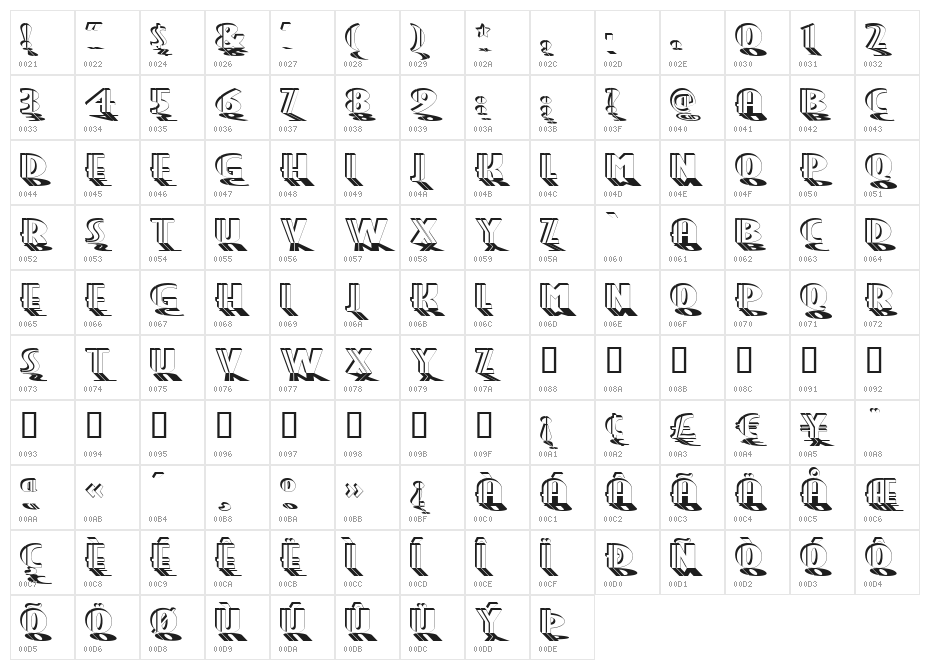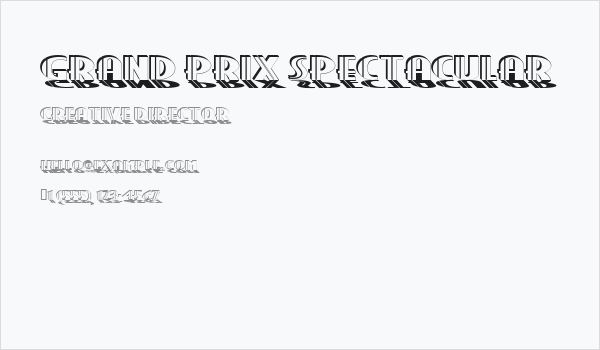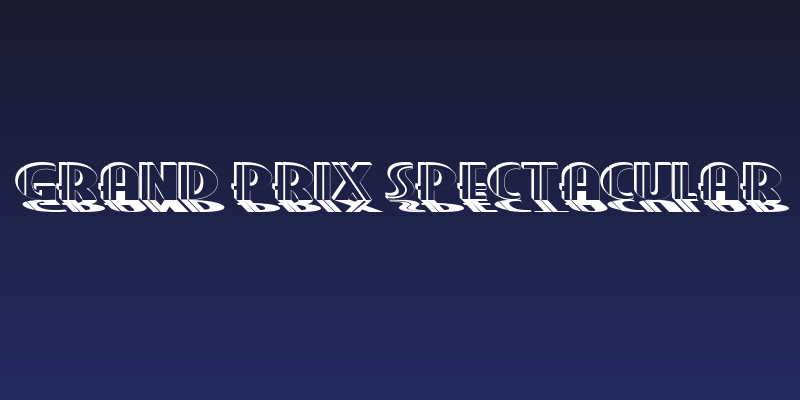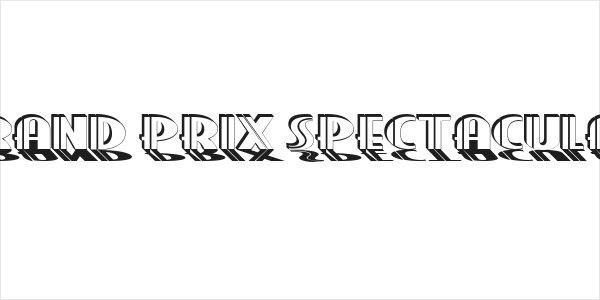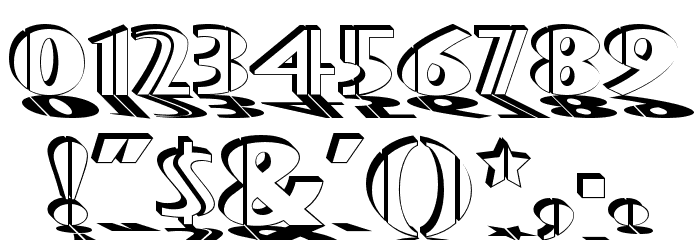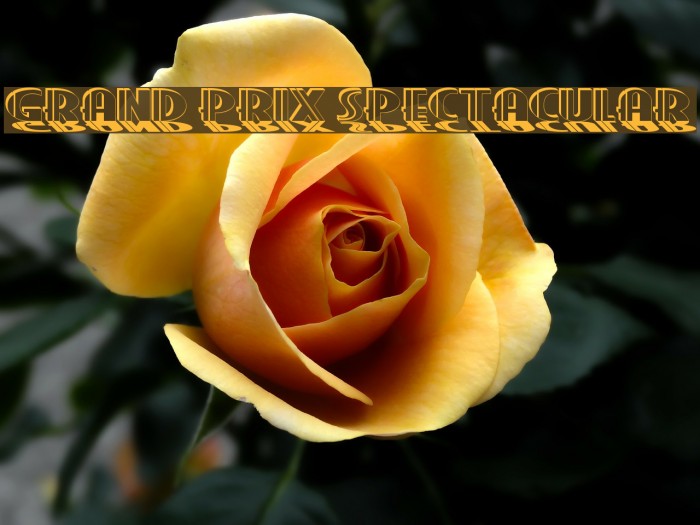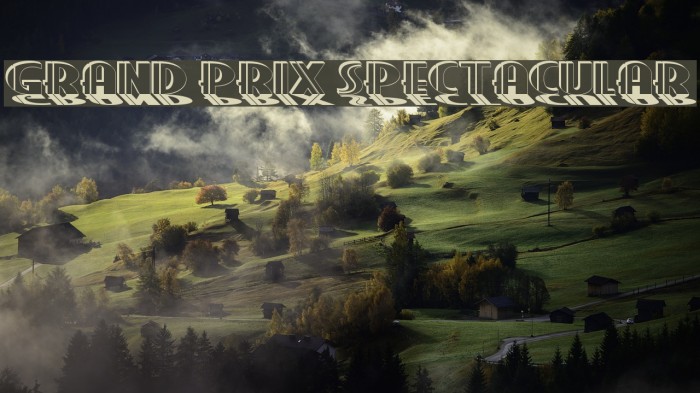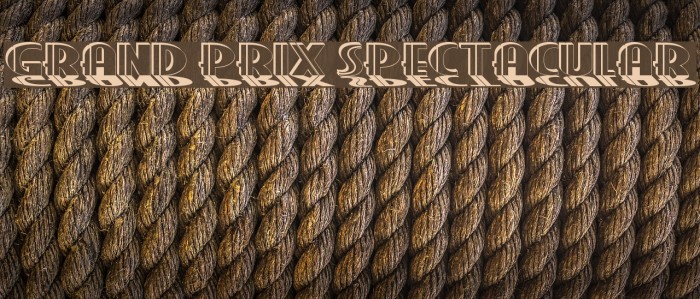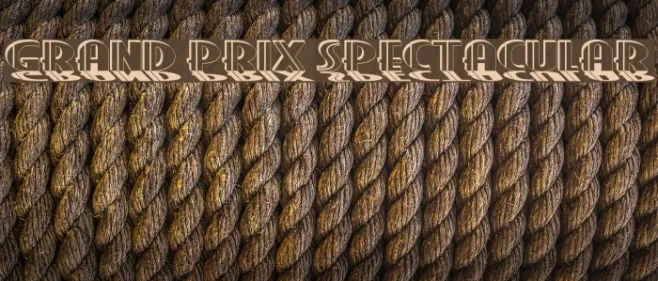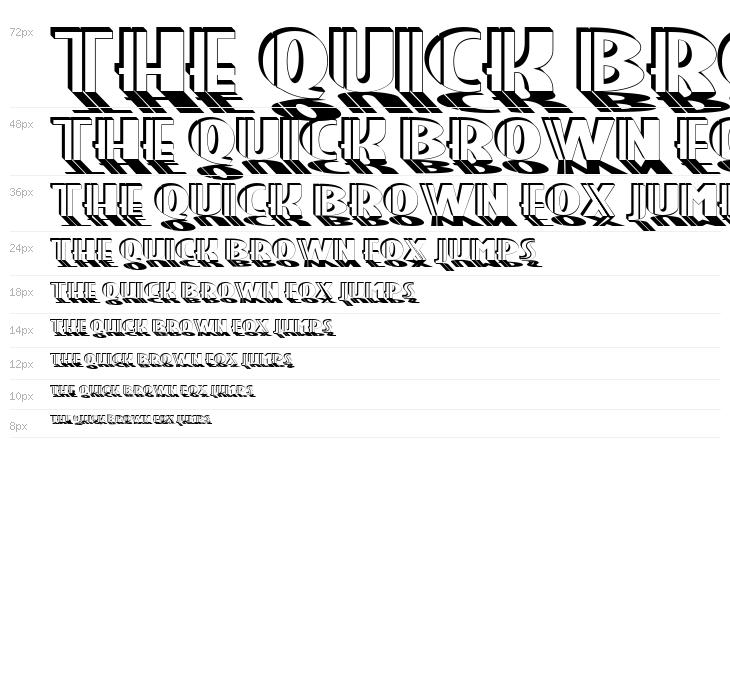
Grand Prix Spectacular Font
Grand Prix Spectacular Description
This font features a bold and dynamic 3D effect with a strong shadow that gives each character a sense of depth and movement. The letters are capitalized and have a geometric, block-like structure, which is accentuated by the contrasting shadows. The design is reminiscent of vintage racing or sports themes, with a sense of speed and energy. The numbers and special characters maintain this bold style, ensuring consistency across all elements. The font's unique style makes it stand out, making it ideal for eye-catching designs.
| Proposed Projects | Ideal for sports event posters, vintage car show flyers, dynamic logos, and any design needing a bold, energetic feel. |